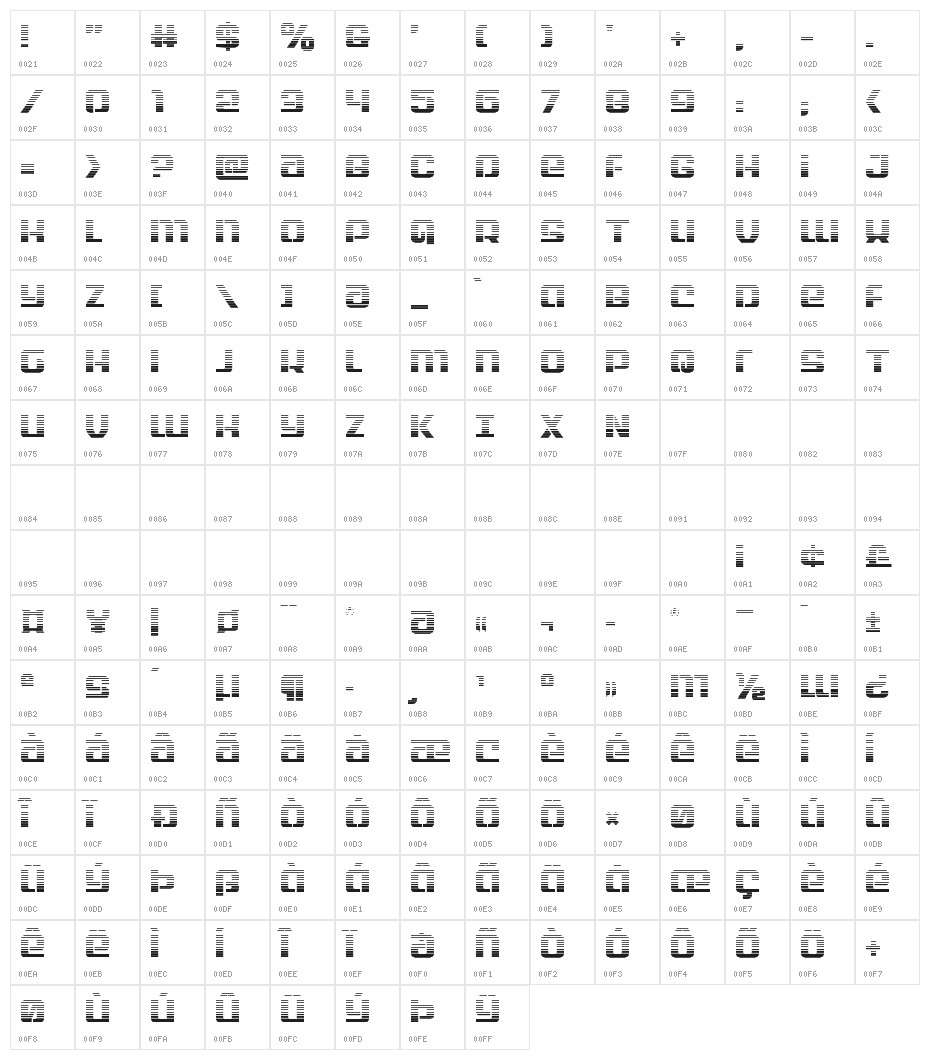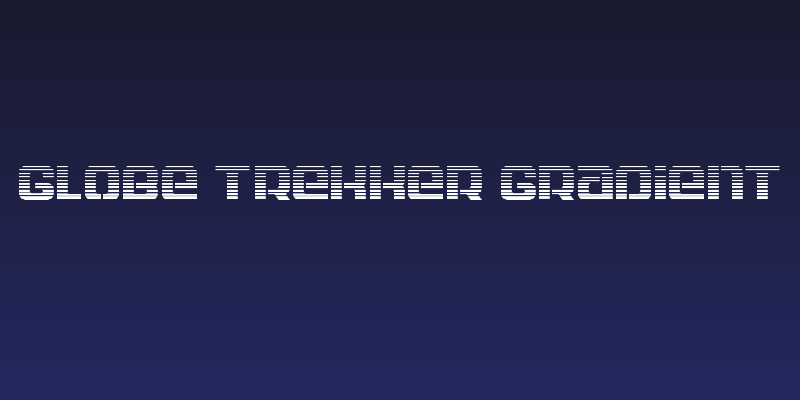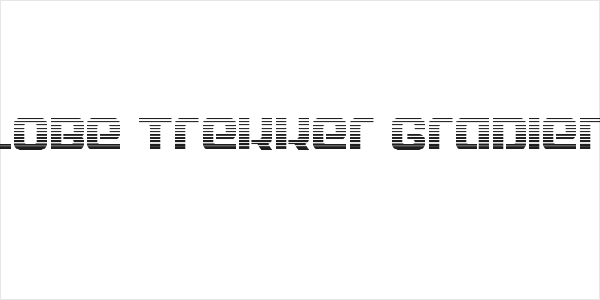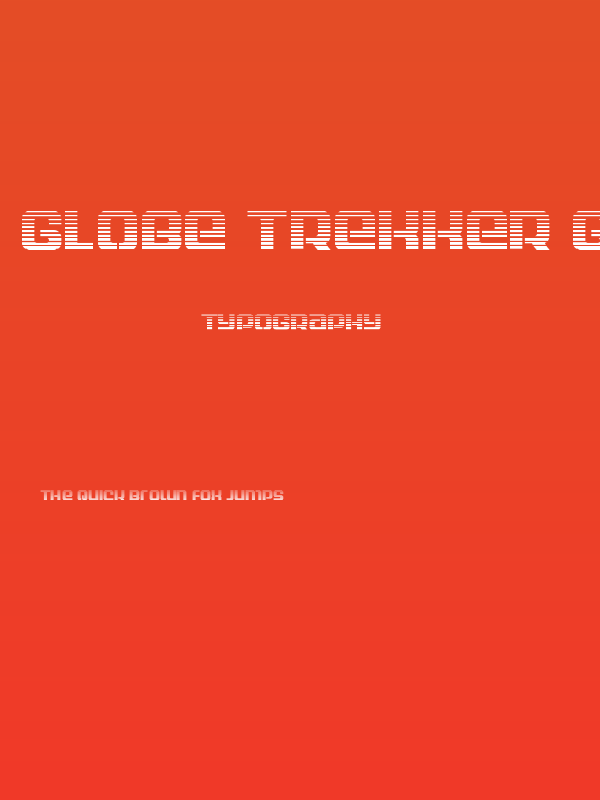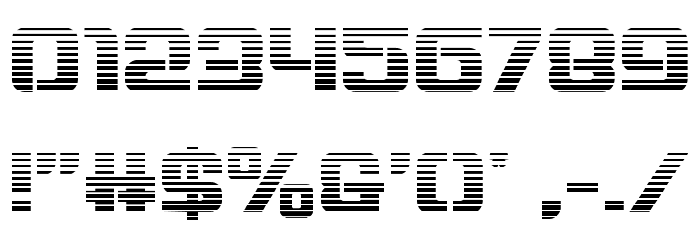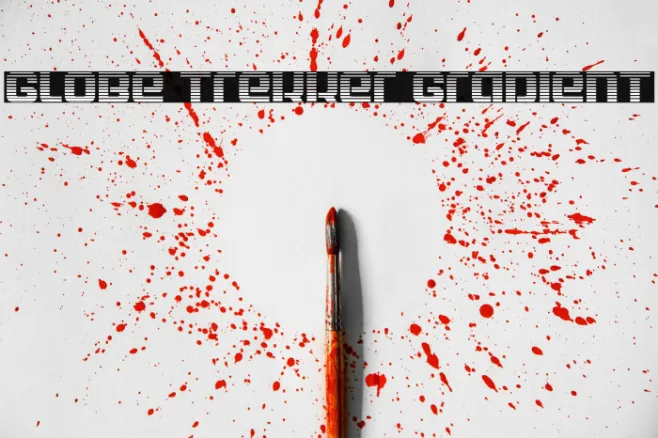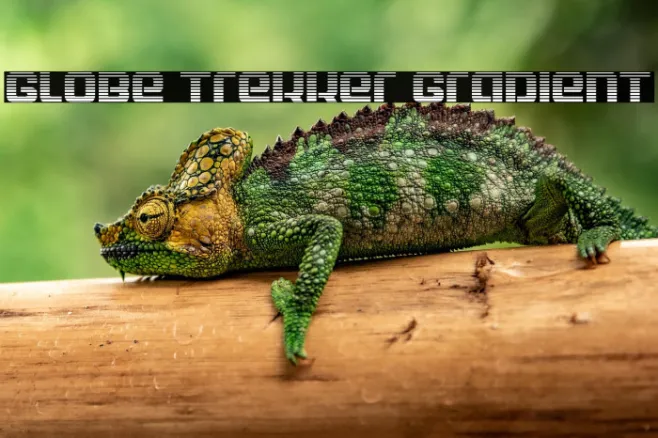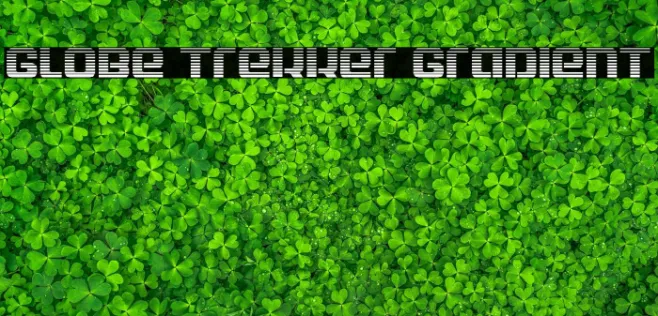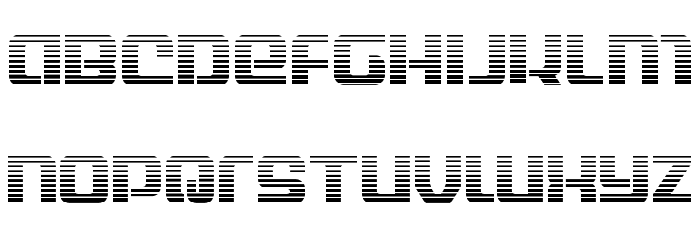
Globe Trekker Gradient Font
Globe Trekker Gradient Description
This font features a unique, futuristic design characterized by horizontal lines that create a gradient effect across each character. The style is bold and eye-catching, making it ideal for modern and tech-oriented projects. The uppercase and lowercase letters share a consistent design, with the lowercase slightly smaller in size. Numbers and special characters maintain the same striped pattern, ensuring uniformity across all glyphs. The font's distinct appearance is both decorative and functional, suitable for projects that require a strong visual impact.
| Proposed Projects | Ideal for tech branding, sci-fi themed posters, video game titles, and futuristic product packaging. |